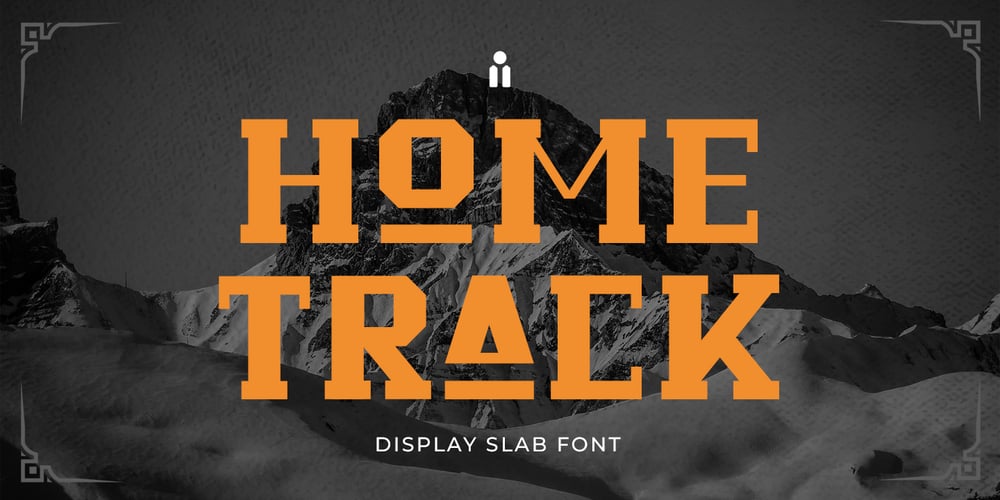
Home Track
Home Track font
Home Track Font Family was designed by Bayu Suwirya and published by Illushvara. Home Track contains 1 styles and family package options. Hello,Home Track is a display slab font. More explore the basic slab font speciality the uppercase mix with a vintage adventure style and make an unique alternates line. Will make your design strong, bold and stand out. With playful line this font perfects for headline, poster film, banner product, website, logo labels or any type of advertising purpose. This font support Multilingual Languages.FEATURES :UppercaseNumberPunctuationMultilingualPUA EncodeOpentype CharacterAlternatesFILES INCLUDED :Home Track. OtfIf you have any question, don’t hesitate to contact me. Happy Designing !!!Thank You,Illushvara Design